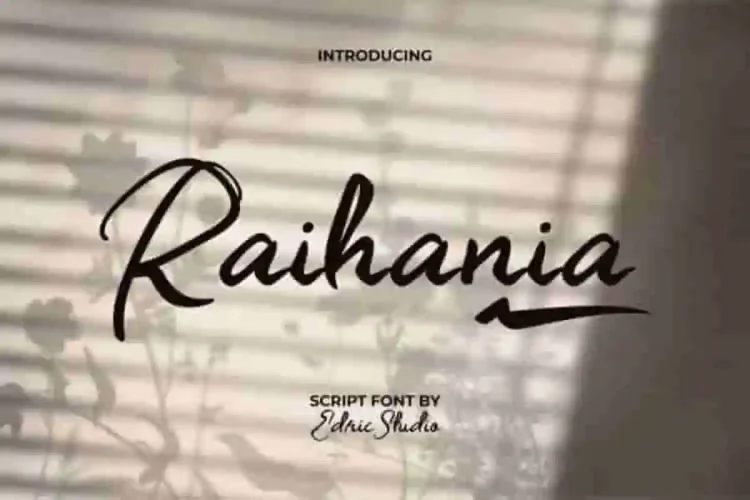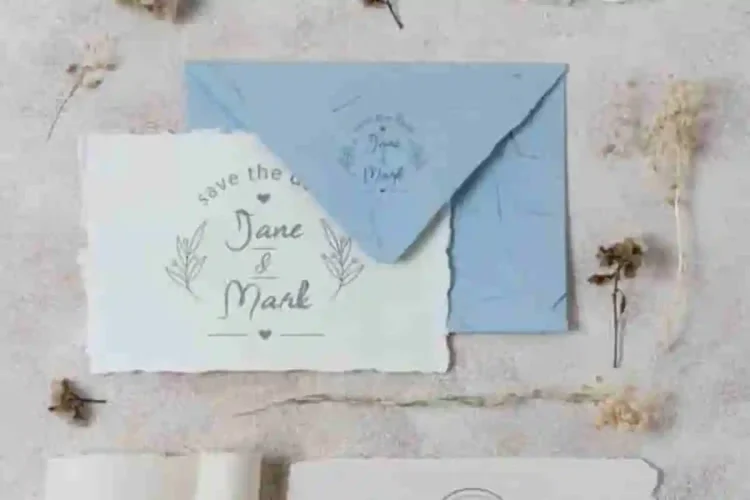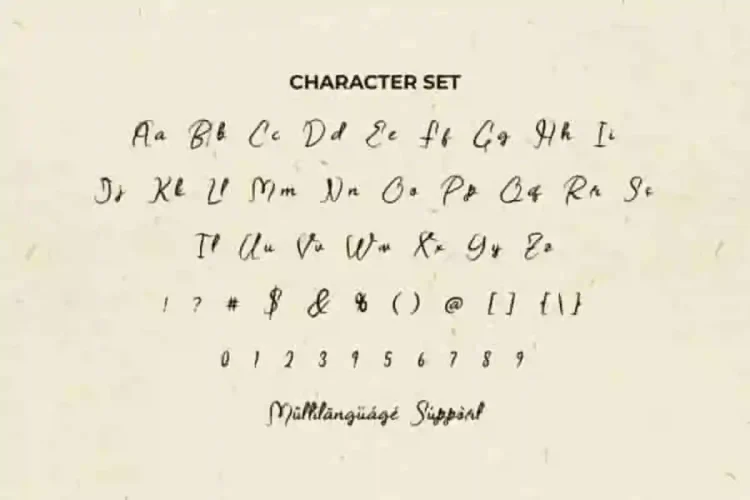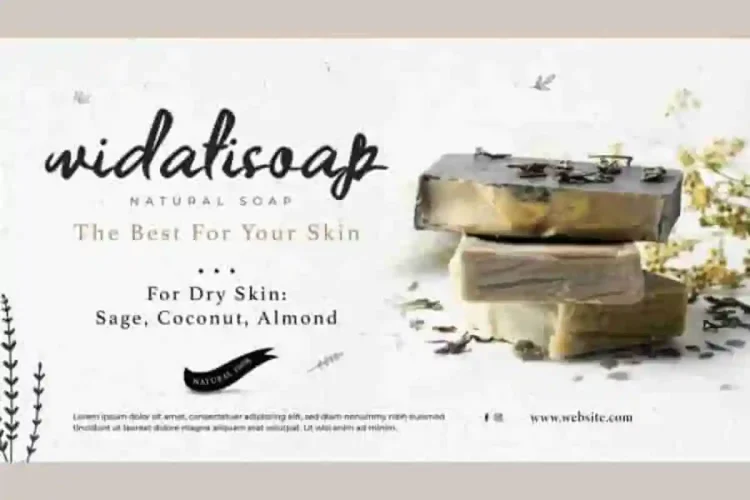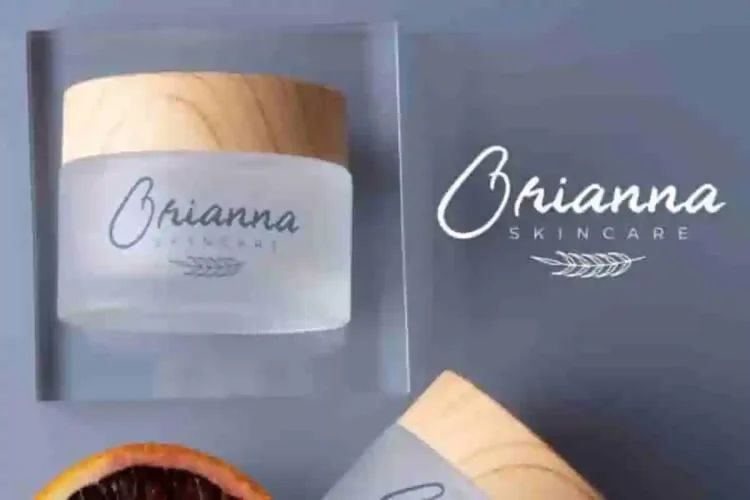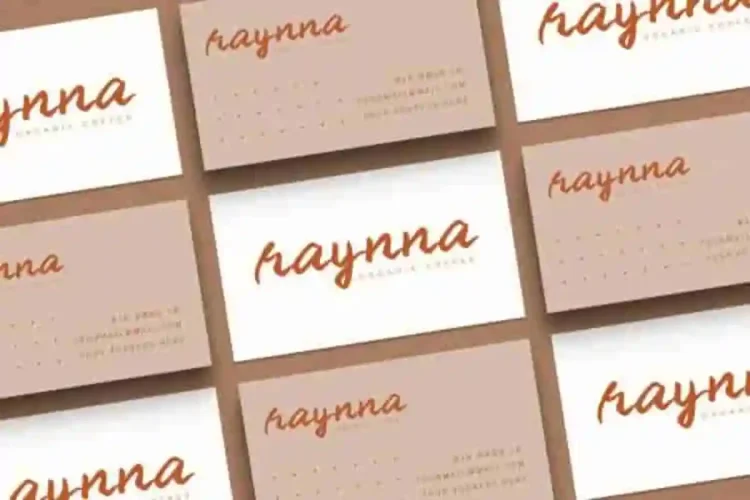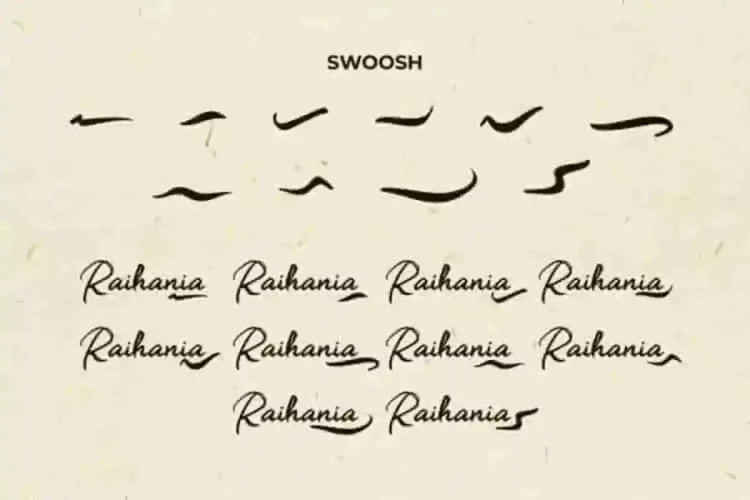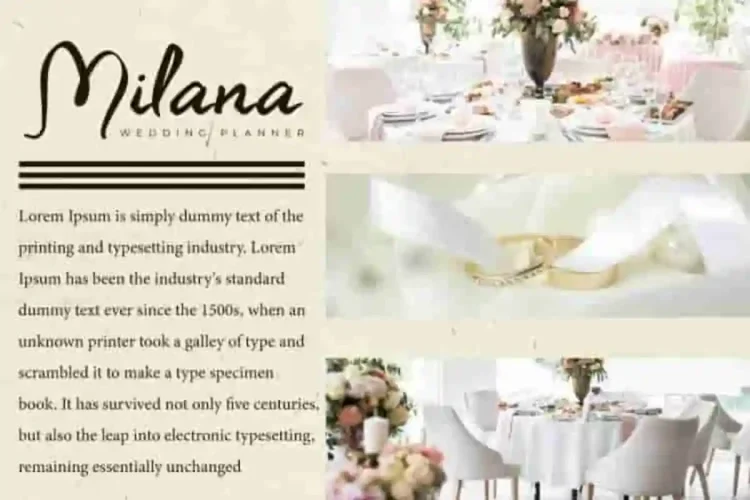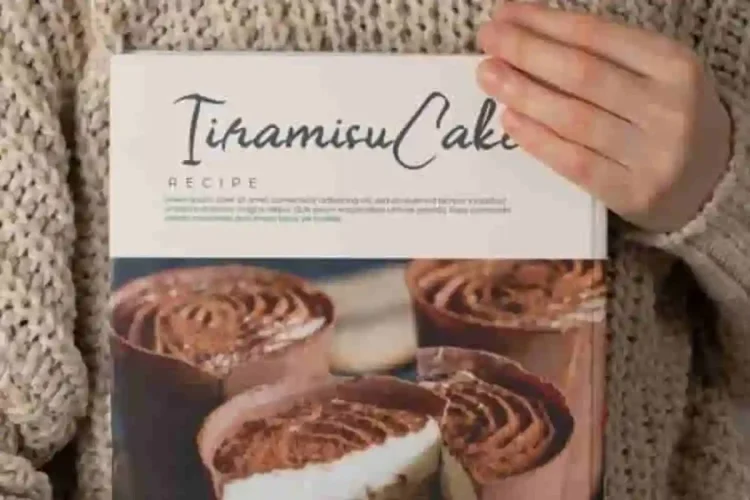
Raihania Script Font a stunning script font inspired by classic calligraphy. It works beautifully for logos, invitations, business cards, packaging, brochures, signage, websites, and more, ensuring your designs leave a lasting impression.
Raihania Script Font comes with a full set of Uppercase and Lowercase Basic Characters, Number, a large range of Punctuation and Symbol, and Swoosh. It has a stunning characters set, perfectly managed with well spaced and kerning. Raihania Script Font will be great for any projects (with extended license) including: brand logo, brochure, business card, cover, envelope, invitation, label, menu, product packaging, quote, signage, stationery, sticker, title, website, etc.
Raihania Script Font is a playful typeface with unique decoration in each character. Ready to use both on Windows machine or Mac with simple installations with multilingual characters supported. It’s tested to work well in the Adobe Apps (Illustrator, Adobe InDesign, Adobe Photoshop) even work on Microsoft Word. PUA Encode Characters means you can access all characters easily – Fully accessible without additional design software.